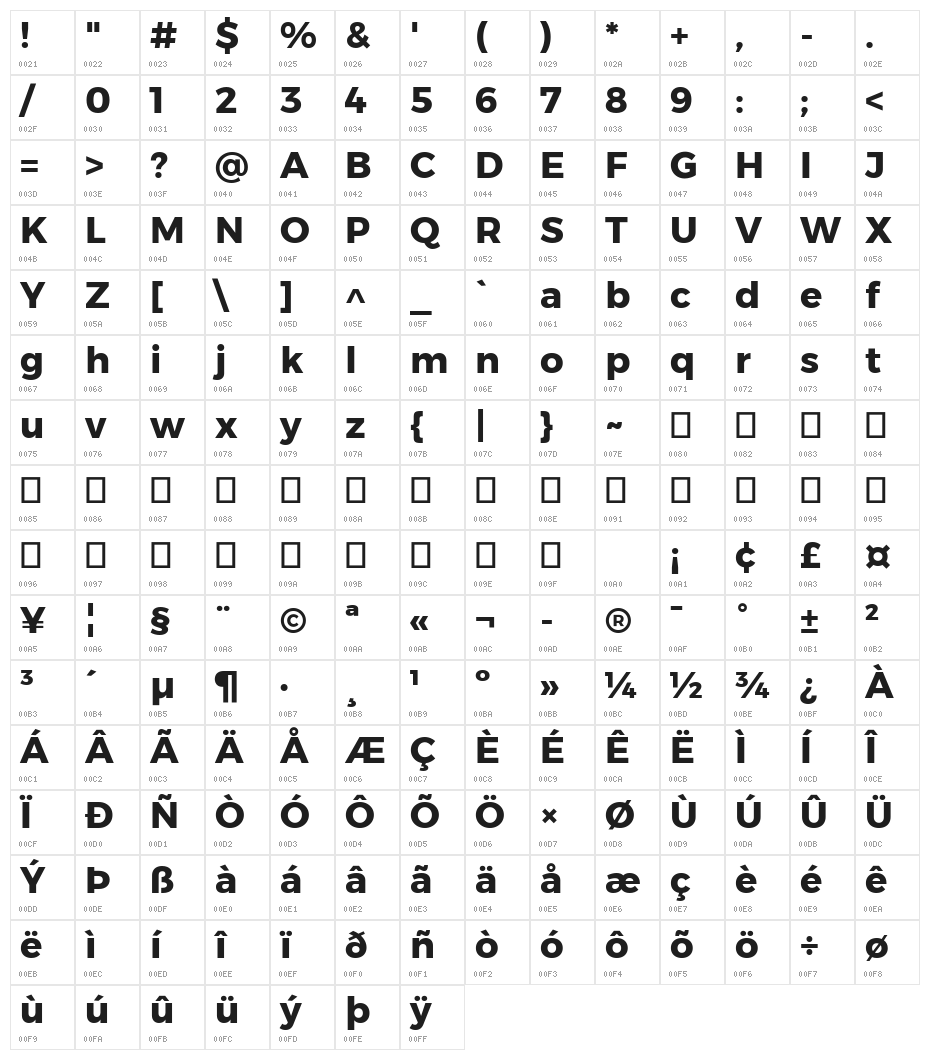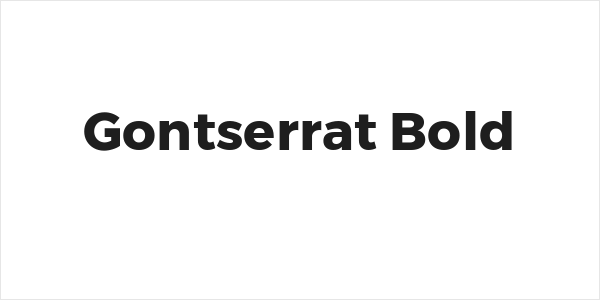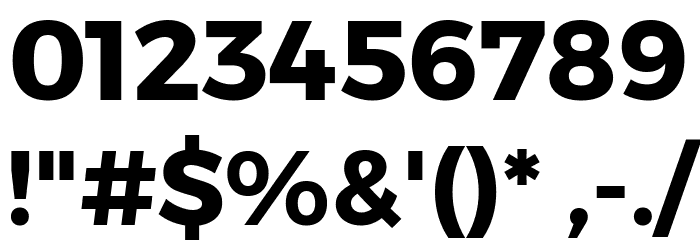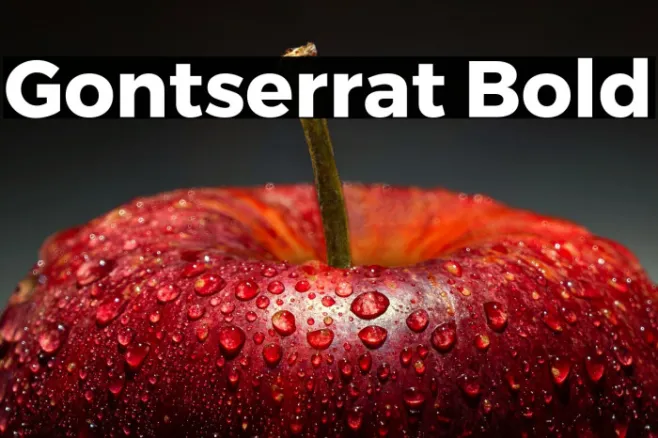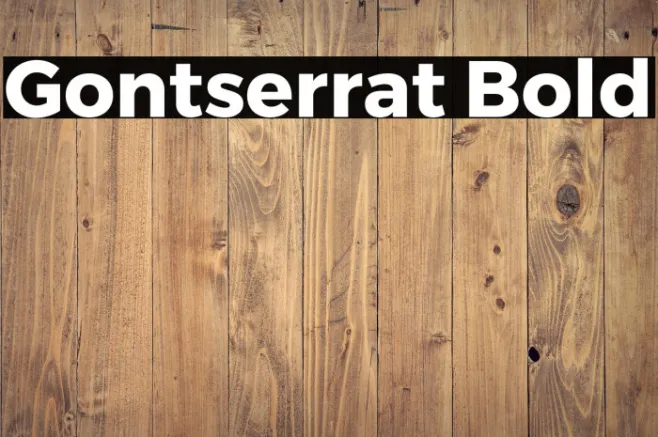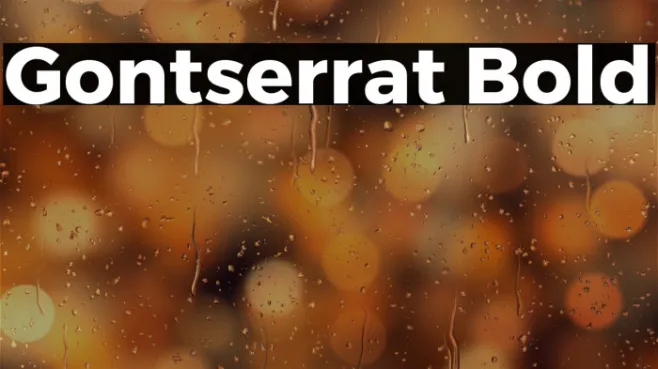
Gontserrat Bold Font
| Cas d'utilisation | Headlines, Logos, Branding |
| Projets proposés | Ideal for branding, headlines, posters, and digital media where a strong, modern look is desired. |